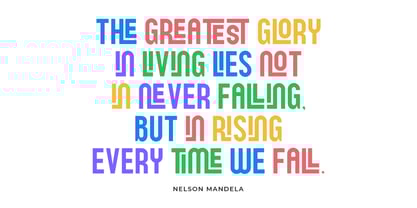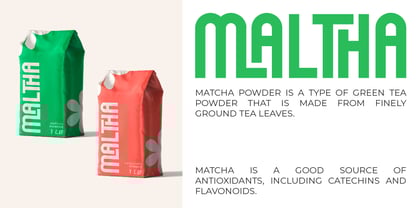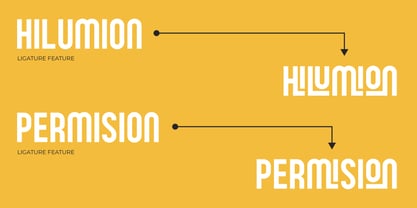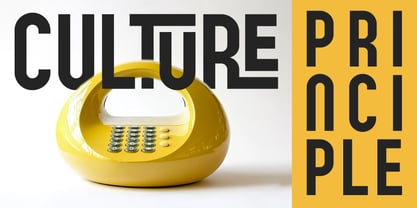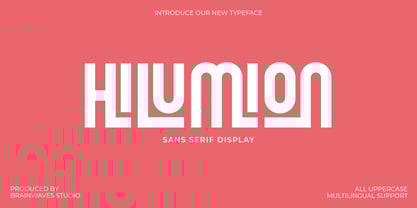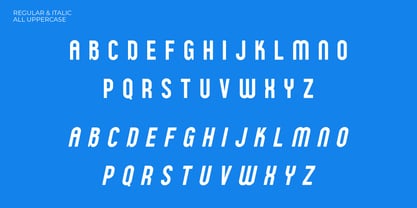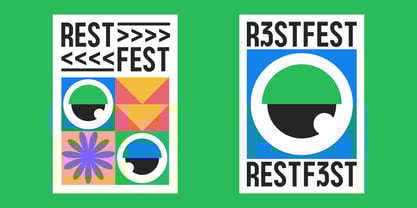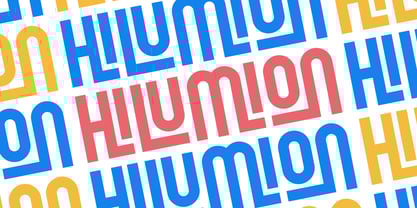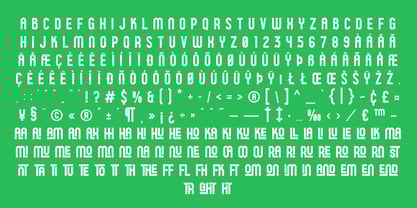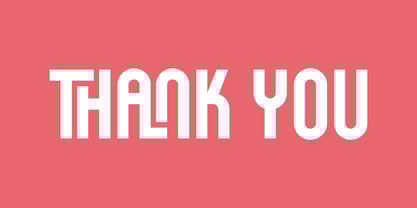
Hilumion Sans
The Hilumion Sans Font Family was designed by Lucky Fitriadi and published by Brainwaves Studio. Hilumion Sans contains 2 styles and family package options. More about this family
Hilumion – Fresh Retro Vibes
A bold and stylish sans serif display font that combines retro charm with modern aesthetics. Its clean lines and geometric structure make it the perfect choice for designs that need to stand out while maintaining a vintage edge.
• Retro-Modern Style: A fresh, eye-catching look with vintage inspiration.
• All Uppercase: Comes in Regular and Italic for bold, impactful designs.
• Multilingual Ready: Designed for global audiences.
Perfect for :
• Branding projects with a retro-modern touch.
• Posters, flyers, and promotional designs that demand attention.
• Product packaging with a distinctive and professional look.
• Digital designs like website headers or social media graphics that leave a lasting impression.
Whether you're creating bold headlines, crafting nostalgic designs, or building a unique brand identity, Hilumion is here to make a statement.